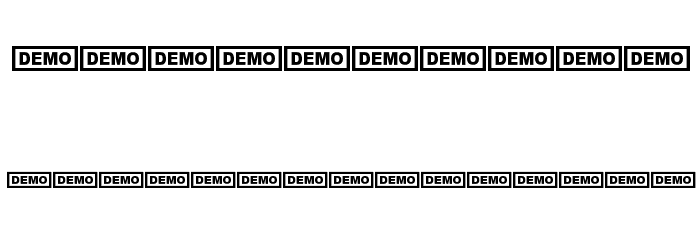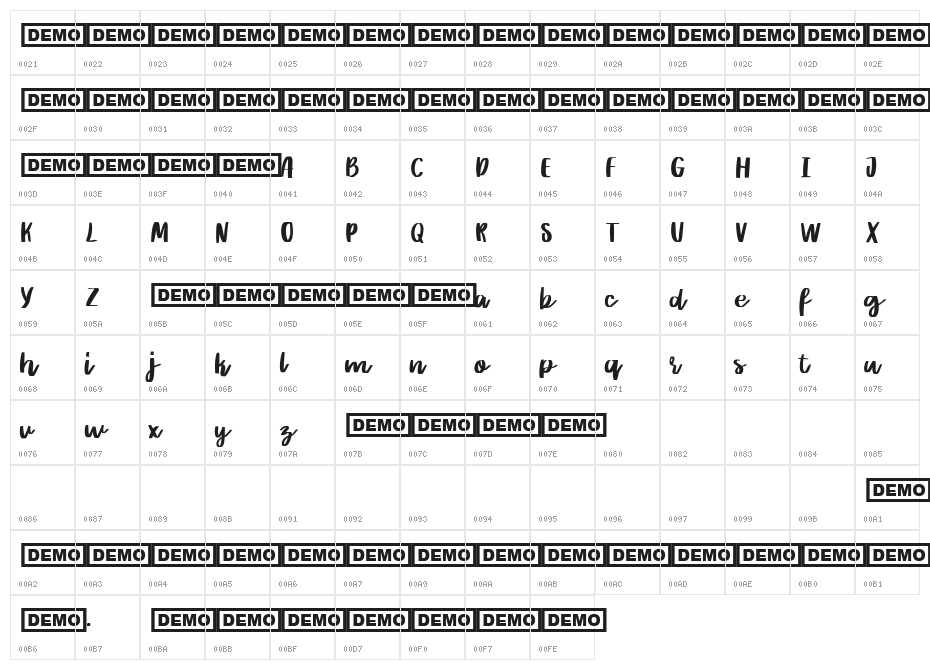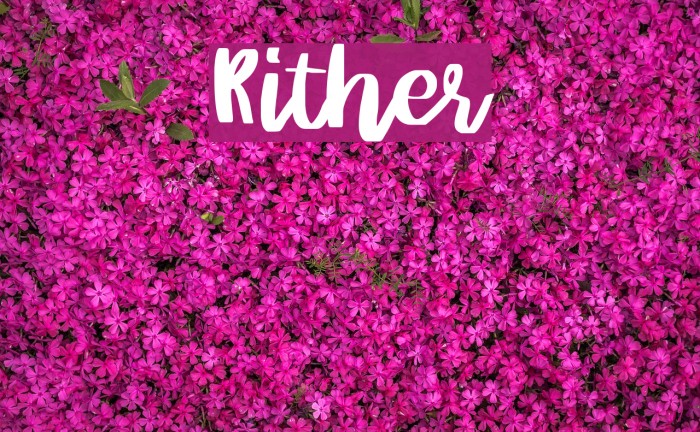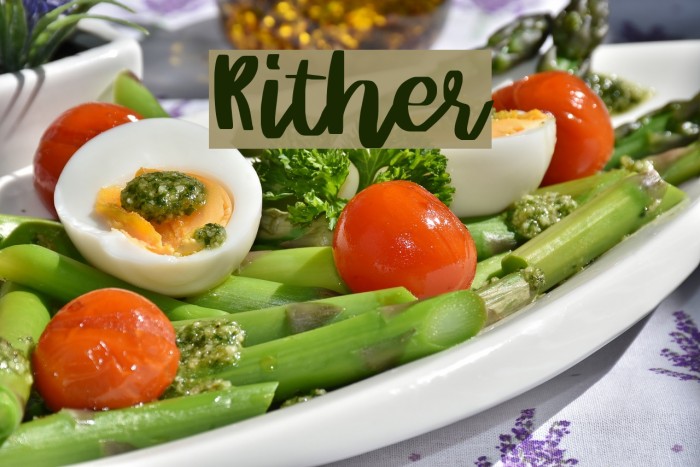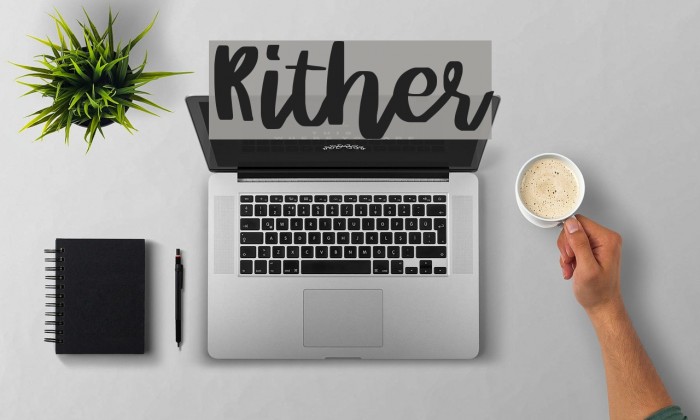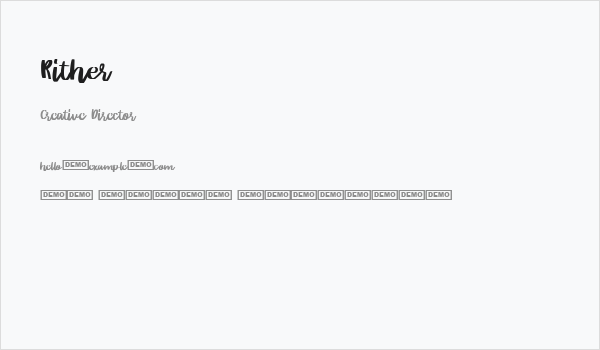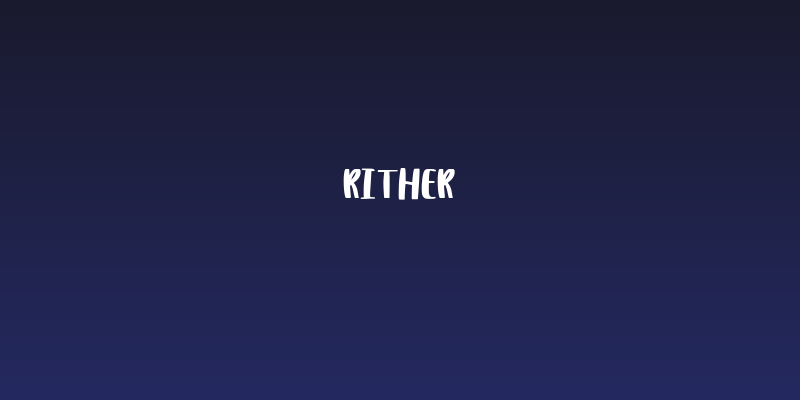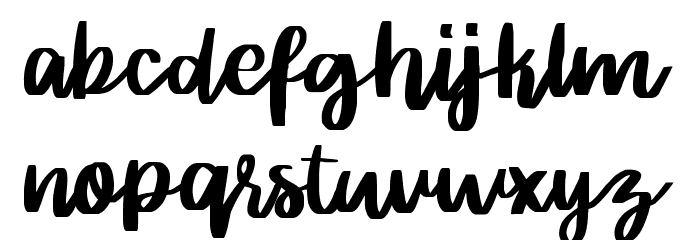
Rither Font
Rither Description
This font features a bold, handwritten style with a playful and energetic appearance. The letters are slightly slanted, giving a dynamic and informal feel. The strokes are thick and consistent, with rounded edges that add a friendly touch. The uppercase letters are tall and commanding, while the lowercase letters maintain a cohesive flow with smooth curves. This font is versatile and can be used to convey a sense of creativity and approachability. It's perfect for projects that require a personal and engaging touch.
| Use Case | Logos, Headlines, Social media graphics |
| Proposed Projects | Ideal for greeting cards, invitations, logos, and social media graphics. |